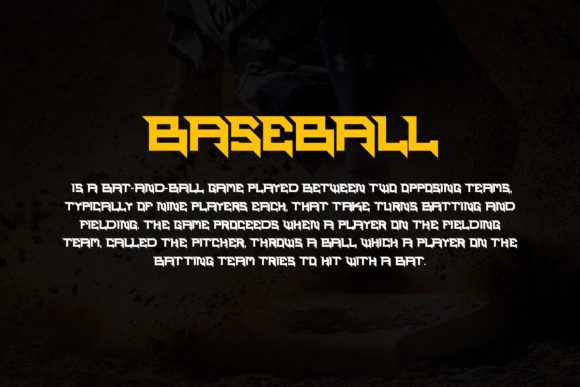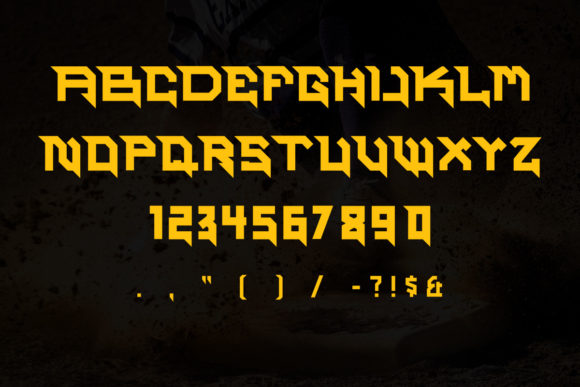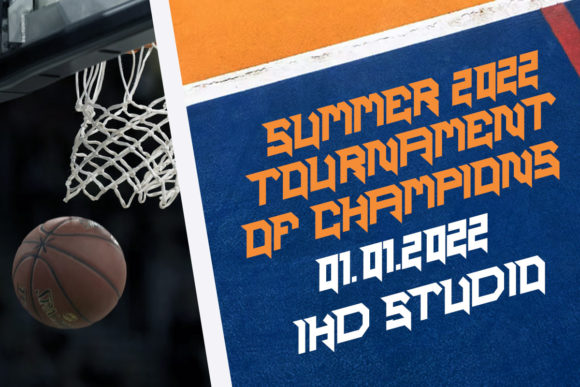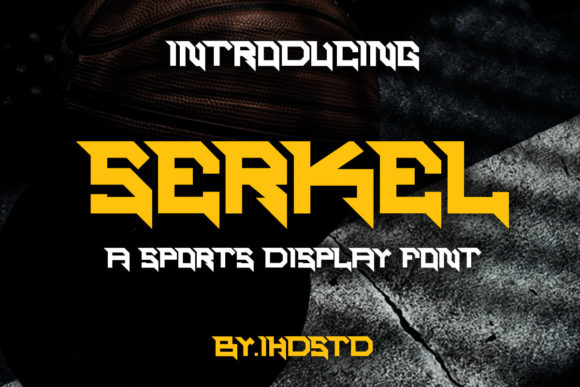
Introduction to Serkel Sports Font
Do you remember that moment when you stumble upon the perfect design element and it instantly elevates your entire creative project? For designers, that ‘aha’ moment is priceless. It’s the spark that sets your imagination ablaze and inspires you to push the boundaries of your craft. One such element that can give you that spark is the Serkel Sports Font – a cool and bold display font that’s sure to take your designs to the next level.
Key Features of Serkel Sports Font
- Unique, modern design perfect for creative projects and sports-related themes.
- Includes multiple weights and styles, providing flexibility for various design applications.
- Designed with a bold, dynamic feel, making it ideal for sports branding, logos, and other creative projects.
Honest Review: Serkel Sports Font
I recently stumbled upon the Serkel Sports Font while searching for a free download to elevate my latest design project. As a designer, I was excited to give it a try and see how it would perform.
Here are the pros and cons of using this font:
- ✨ The font has a high-quality feel to it, making it perfect for creative projects that require a professional touch.
- ✨ The transparent background option is a great feature, allowing me to easily integrate it with other design elements.
- ✨ The font is highly customizable, making it easy to adjust the style to fit my design needs.
- ⚠️ The font can be a bit overwhelming in certain contexts, so it’s essential to use it sparingly.
Overall, I’m impressed with the Serkel Sports Font and would recommend it as a valuable design resource. While it has some limitations, its high-quality feel and customizability make it a great addition to any design project.
Customizing and Tips
To get the most out of Serkel Sports Font, use it on a transparent background to give your designs a clean and modern look. You can also experiment with different font sizes and styles to add visual interest to your creative projects.
Serkel Sports Font is commonly used in sports-themed designs, such as:
- Sports team logos and branding
- Event promotional materials
- Infographics and statistics
Alternatives to Serkel Sports Font
Open Sans is a free and highly legible font that is suitable for a wide range of design projects. It is a modern sans-serif font that is designed to be clear and readable even at small font sizes.
When to use: Use Open Sans for body text, headings, and titles in digital design projects, such as websites, apps, and e-books.
Comparison to Serkel Sports Font: While Open Sans is a clean and modern font, it lacks the sporty and energetic feel of Serkel Sports Font. Use Open Sans for more formal or professional projects, and reserve Serkel Sports Font for creative projects that require a bold and energetic tone.
Montserrat is a free font that is inspired by the urban typography of Buenos Aires. It is a modern sans-serif font that is designed to be high quality and versatile.
When to use: Use Montserrat for headings, titles, and body text in creative projects, such as branding, advertising, and editorial design.
Comparison to Serkel Sports Font: While Montserrat has a similar urban feel to Serkel Sports Font, it is more formal and sophisticated. Use Montserrat for projects that require a high level of professionalism and style.